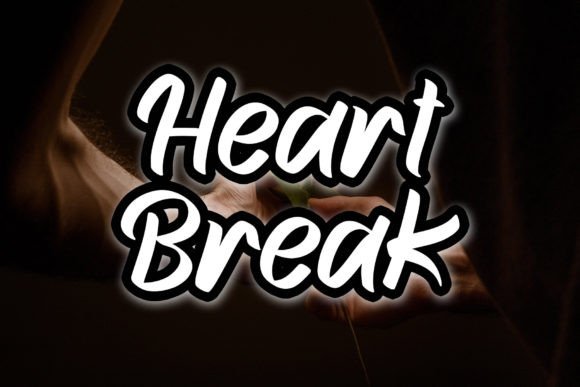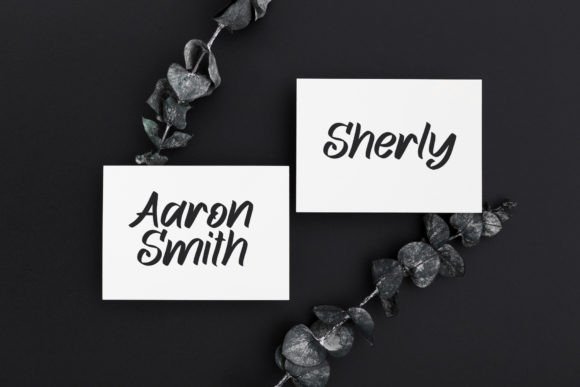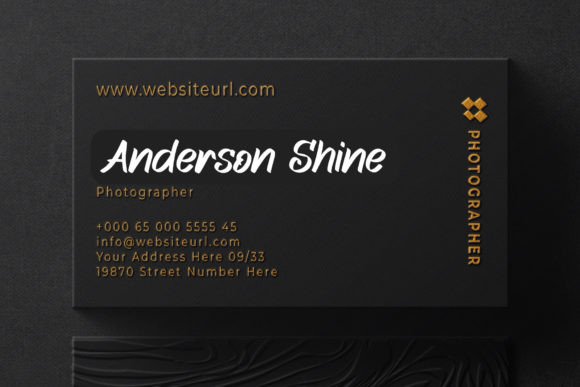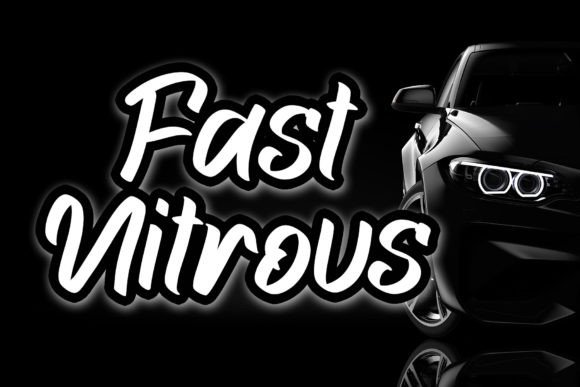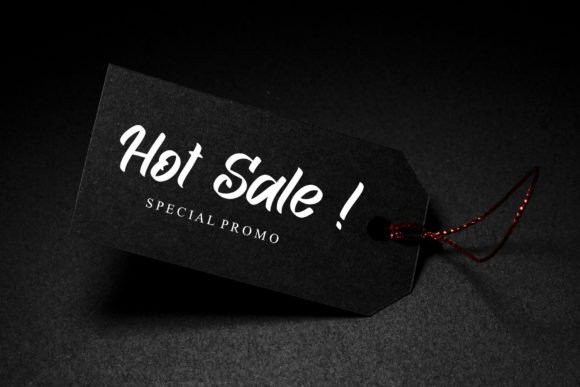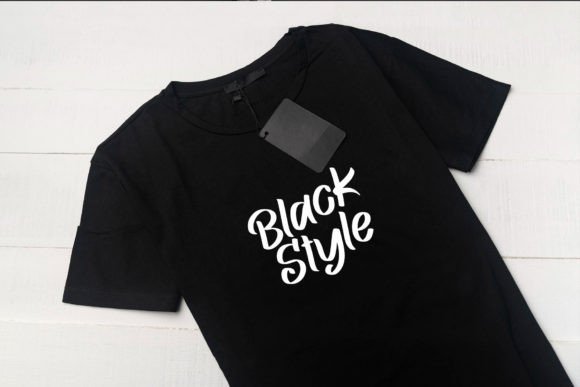
Introducing Black Rose Font: The Perfect Handwritten Touch for Your Designs
Are you a designer or crafter looking for a unique and elegant font to add a personal touch to your creations? Look no further than the Black Rose Font, a beautiful and natural handwritten font that’s perfect for a variety of design projects. In this article, we’ll take a closer look at the Black Rose Font, its features, and how you can use it to elevate your designs.
What is Black Rose Font?
Black Rose is a neat and natural handwritten font that’s designed to bring a touch of elegance and sophistication to your designs. With its smooth and flowing lines, this font is perfect for creating beautiful and eye-catching text that will capture the attention of your audience. Whether you’re designing wedding invitations, thank you cards, quotes, greeting cards, logos, business cards, or any other type of design that needs a handwritten touch, the Black Rose Font is an excellent choice.
Features of Black Rose Font
The Black Rose Font has several features that make it an excellent choice for designers and crafters. Some of its key features include:
- Natural and Handwritten Look: The Black Rose Font has a natural and handwritten look that’s perfect for creating designs that need a personal touch.
- Elegant and Sophisticated: This font has an elegant and sophisticated feel that’s perfect for creating high-end designs.
- Versatile: The Black Rose Font is versatile and can be used for a variety of design projects, including wedding invitations, thank you cards, quotes, greeting cards, logos, business cards, and more.
- Easy to Read: This font is easy to read, making it perfect for designs that need to communicate a message clearly.
How to Use Black Rose Font
The Black Rose Font is easy to use and can be incorporated into your designs in a variety of ways. Here are a few ideas to get you started:
- Wedding Invitations: Use the Black Rose Font to create beautiful and elegant wedding invitations that will set the tone for the big day.
- Thank You Cards: Add a personal touch to your thank you cards with the Black Rose Font, perfect for expressing gratitude to friends and family.
- Quotes and Greeting Cards: Use this font to create inspiring quotes and greeting cards that will touch the hearts of your audience.
- Logos and Business Cards: Add a touch of elegance to your logos and business cards with the Black Rose Font, perfect for creating a professional and sophisticated brand image.
Tips for Using Black Rose Font
Here are a few tips to keep in mind when using the Black Rose Font:
- Use it Sparingly: While the Black Rose Font is beautiful, it’s best to use it sparingly to avoid overwhelming your design.
- Pair it with Other Fonts: Experiment with pairing the Black Rose Font with other fonts to create a unique and interesting design.
- Adjust the Size and Color: Adjust the size and color of the font to suit your design and make it stand out.
The Black Rose Font is a beautiful and elegant handwritten font that’s perfect for designers and crafters looking to add a personal touch to their creations. With its natural and handwritten look, elegant and sophisticated feel, and versatility, this font is an excellent choice for a variety of design projects. By following the tips outlined in this article, you can use the Black Rose Font to create stunning designs that will capture the attention of your audience.